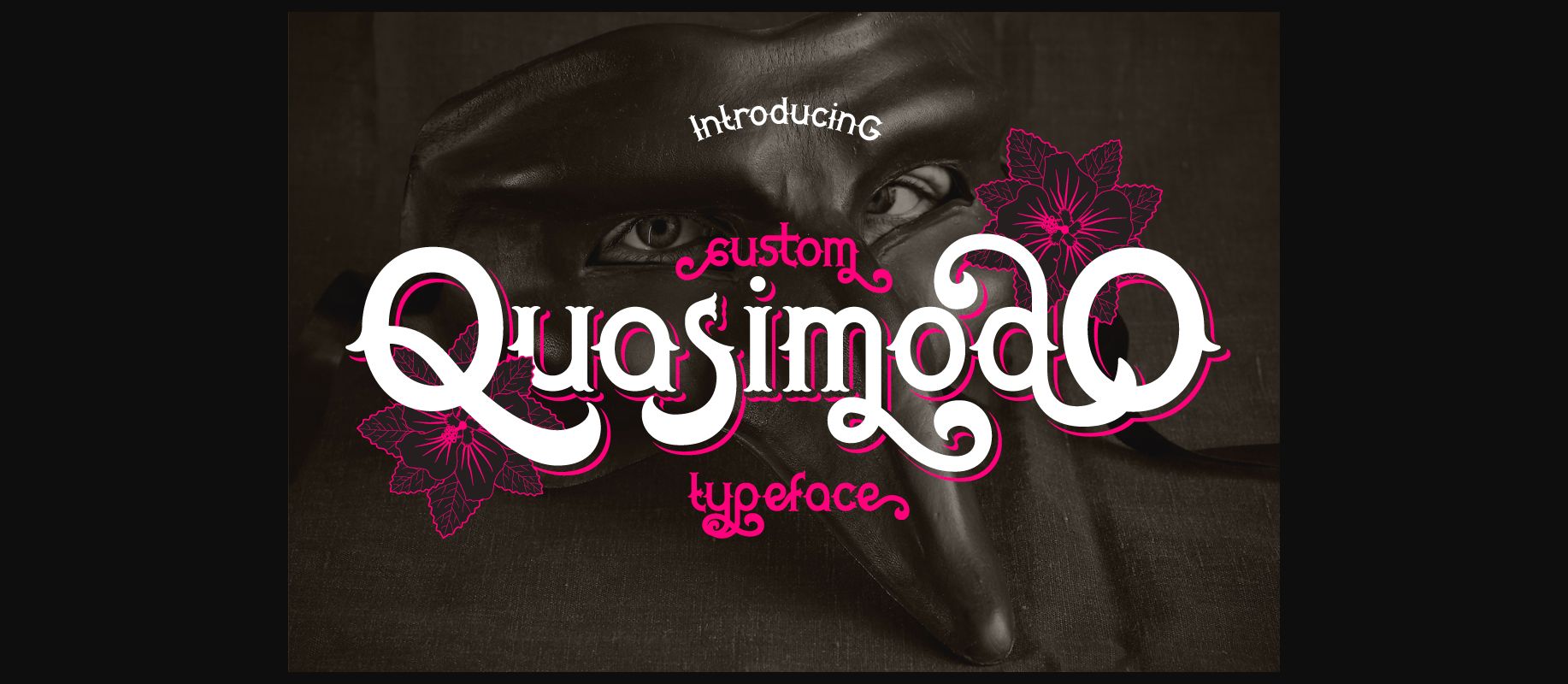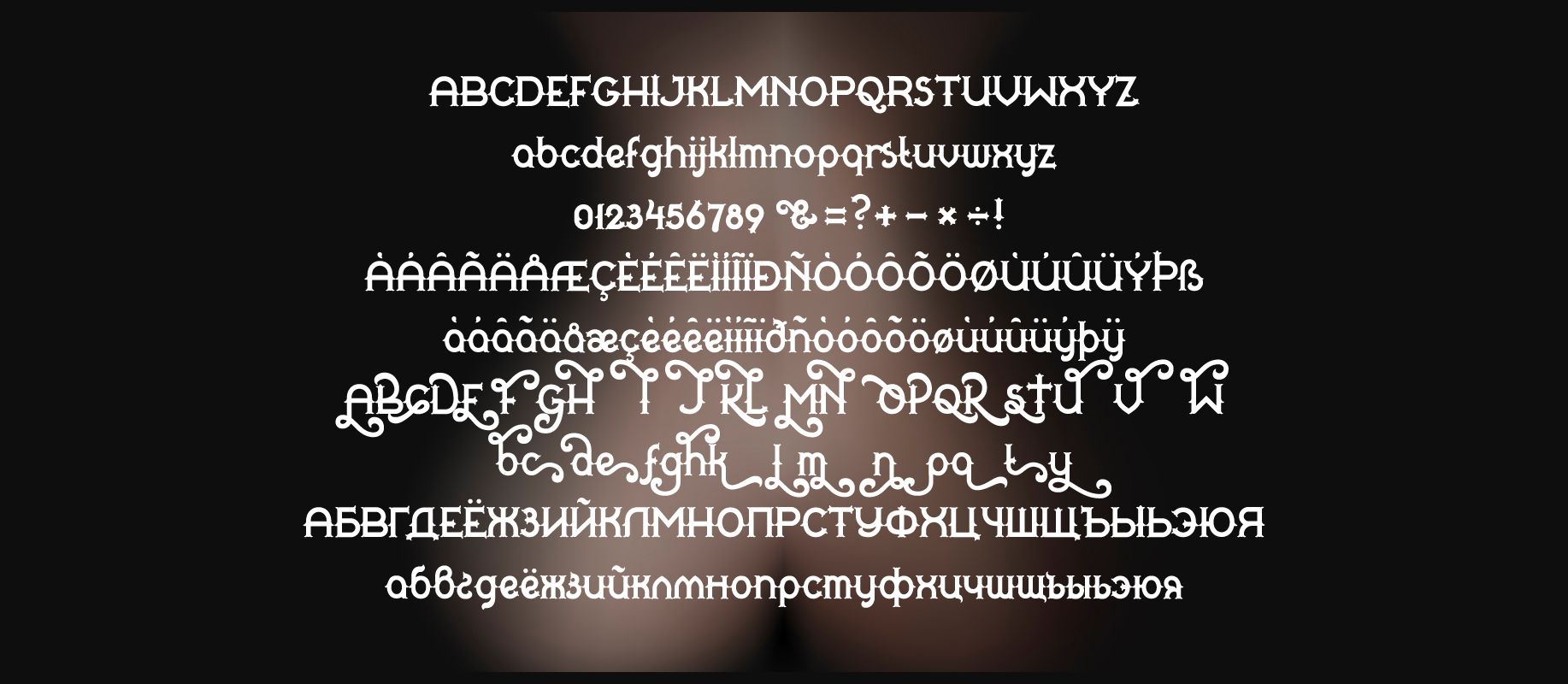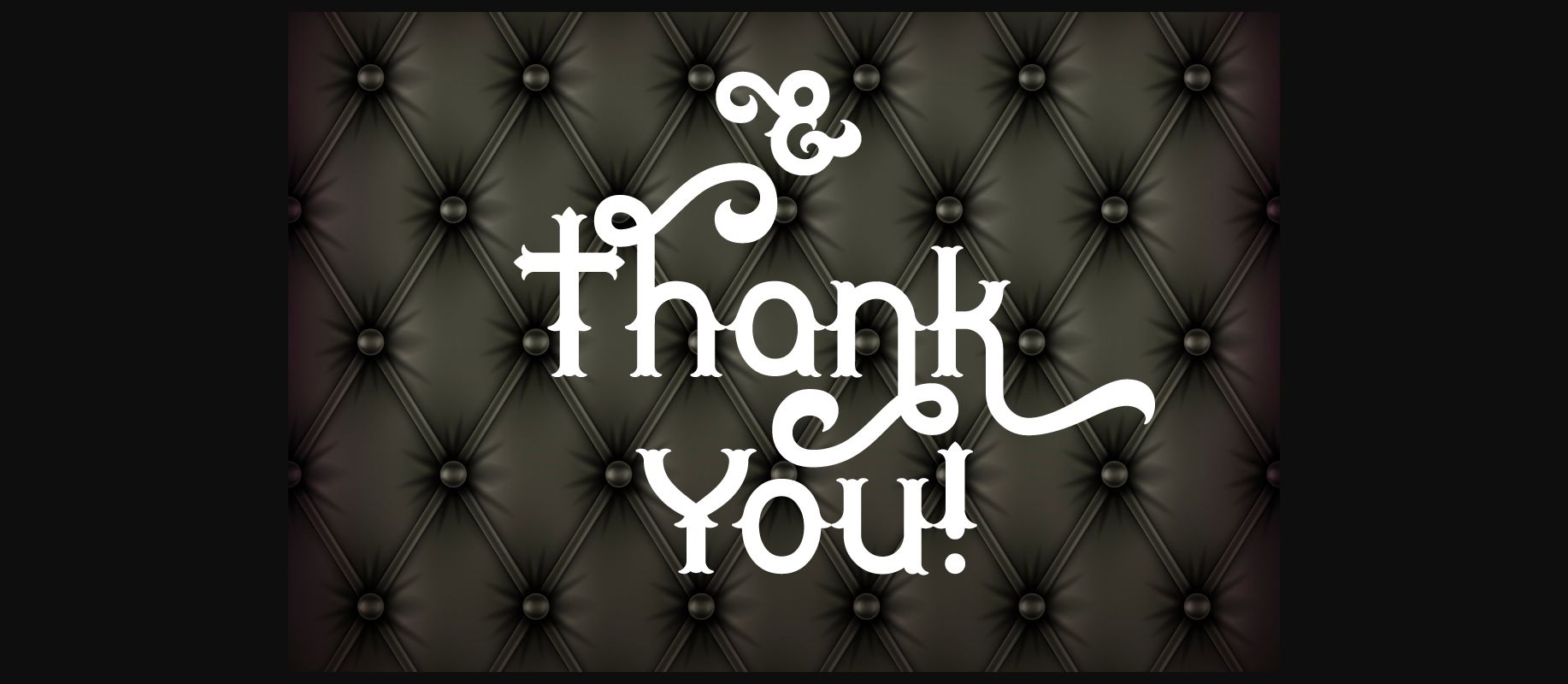
Quasimodo Font
About Quasimodo Font
The Quasimodo Typeface is an expressive font that will turn your designs into something customers will remember.
It doesn’t matter if you are creating corporate designs, magazines for the masses or personal craft designs, Quasimodo will turn into any text into something unique.